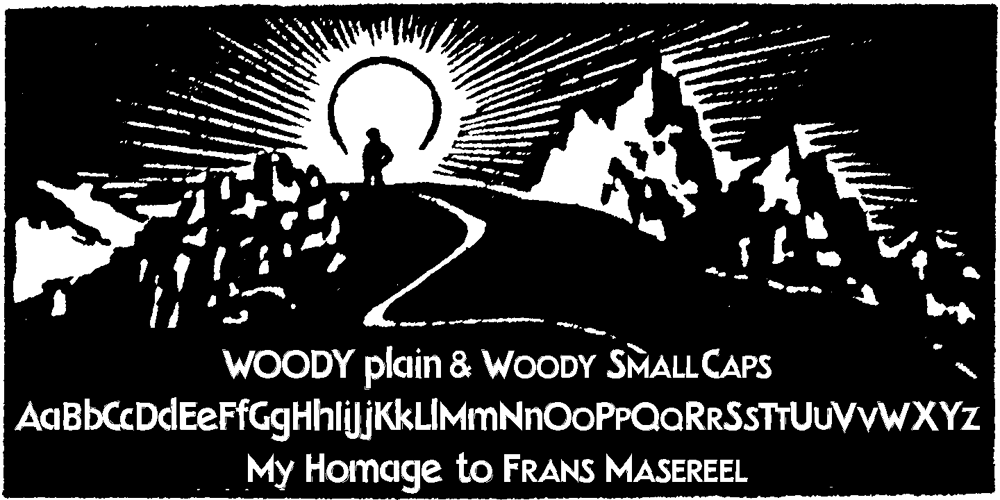
Woody Font Family was designed by Gert Wiescher and published by Wiescher Design. Woody contains 2 styles and family package options. Frans Masereel wrote or should I rather say cut some “novels in pictures” around 1927. They are written in powerful black and white woodcuts and were apparently printed from the original cuttings, at least that what it looks like. On the cover he cut the titles in rough wooden letters. Those letters inspired me to produce Woody. Maybe some day I will add a second weight, wich will be an extended cut. But for the time being this is enough woodwork. Your woodcutter Gert Wiescher